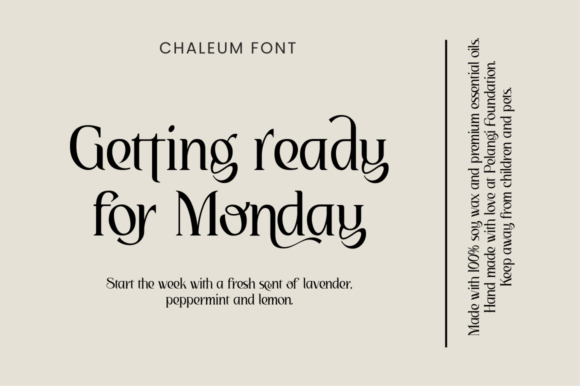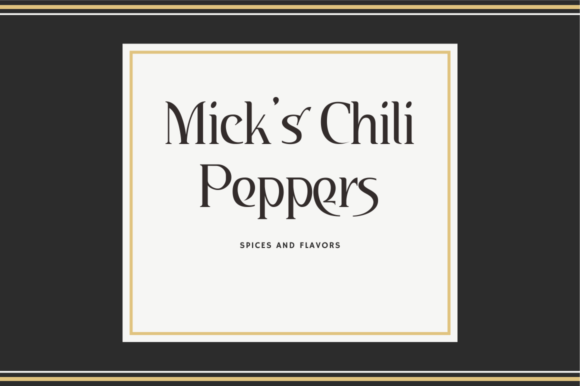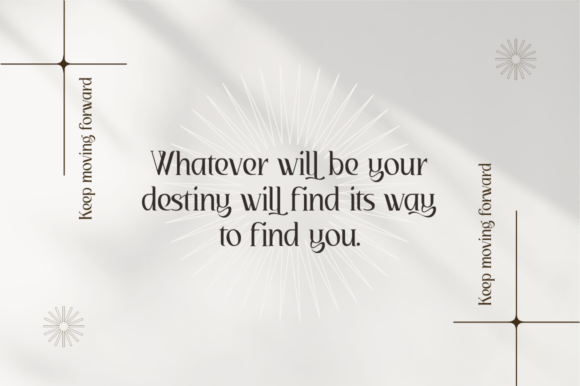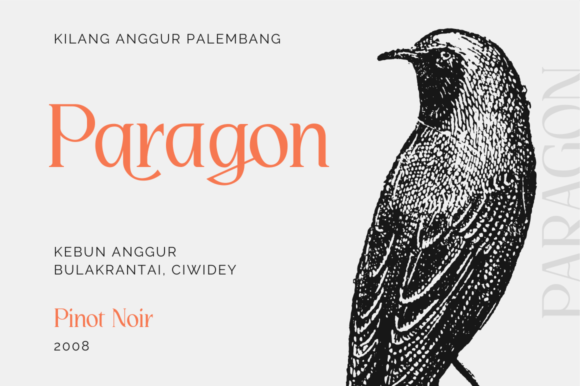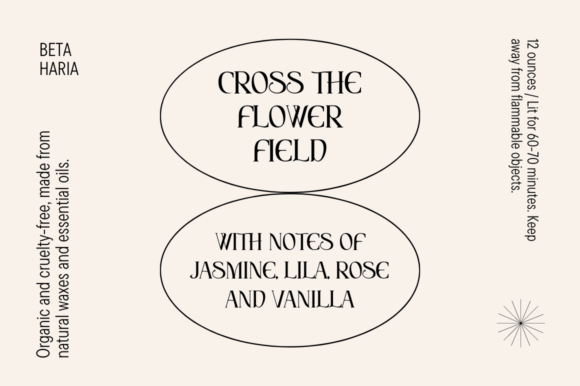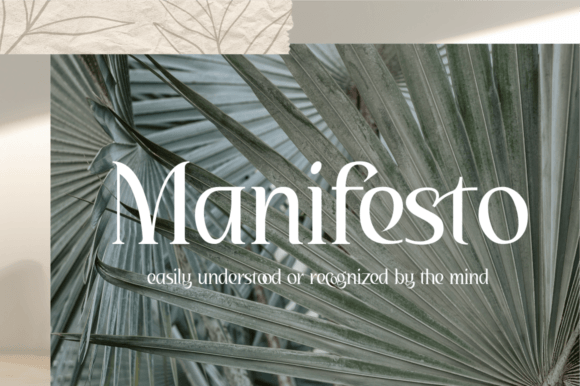
Introducing Chaleum Font: Elevate Your Designs with Modern Elegance
Are you on the hunt for a font that exudes sophistication and style? Look no further than Chaleum Font, a modern and elegant display font designed to take your projects to the next level. With its sleek lines, refined curves, and luxurious feel, Chaleum is the perfect addition to any designer’s toolkit.
The Perfect Blend of Modernity and Elegance
Chaleum Font strikes the perfect balance between modernity and elegance, making it an ideal choice for designers who want to create stunning visual content. Its clean and crisp lines, combined with its elegant curves, give it a sophisticated look that’s sure to impress. Whether you’re working on a branding project, a website design, or a craft project, Chaleum Font is the perfect choice.
Key Features of Chaleum Font
• Modern and Elegant Design: Chaleum Font boasts a sleek and refined design that’s perfect for creating stunning visual content.
• Highly Versatile: Chaleum Font is perfect for a wide range of projects, from branding and advertising to website design and crafting.
• Easy to Read: Despite its elegant design, Chaleum Font is highly legible, making it perfect for use in body text as well as headlines.
• Extensive Language Support: Chaleum Font supports a wide range of languages, making it a great choice for designers working on international projects.
Why Choose Chaleum Font?
So, why should you choose Chaleum Font for your next project? Here are just a few reasons:
• Stand Out from the Crowd: With Chaleum Font, you can create stunning visual content that sets you apart from the competition.
• Enhance Your Brand: Chaleum Font’s elegant design makes it perfect for use in branding and advertising, helping to elevate your brand’s image.
How to Use Chaleum Font in Your Projects
Using Chaleum Font in your projects is easy. Here are a few tips to get you started:
• Pair it with Other Fonts: Chaleum Font pairs perfectly with a wide range of fonts, so don’t be afraid to experiment and find the perfect combination for your project.
• Use it for Headlines and Titles: Chaleum Font’s elegant design makes it perfect for use in headlines and titles, where it can add a touch of sophistication and style.
• Experiment with Different Colors and Textures: Chaleum Font looks great in a wide range of colors and textures, so don’t be afraid to get creative and try out different effects.
In conclusion, Chaleum Font is a modern and elegant display font that’s perfect for designers and crafters looking to elevate their designs. With its sleek lines, refined curves, and luxurious feel, Chaleum is sure to become a staple in your design toolkit. So why wait? Add Chaleum Font to your projects today and experience the power of elegant typography for yourself!